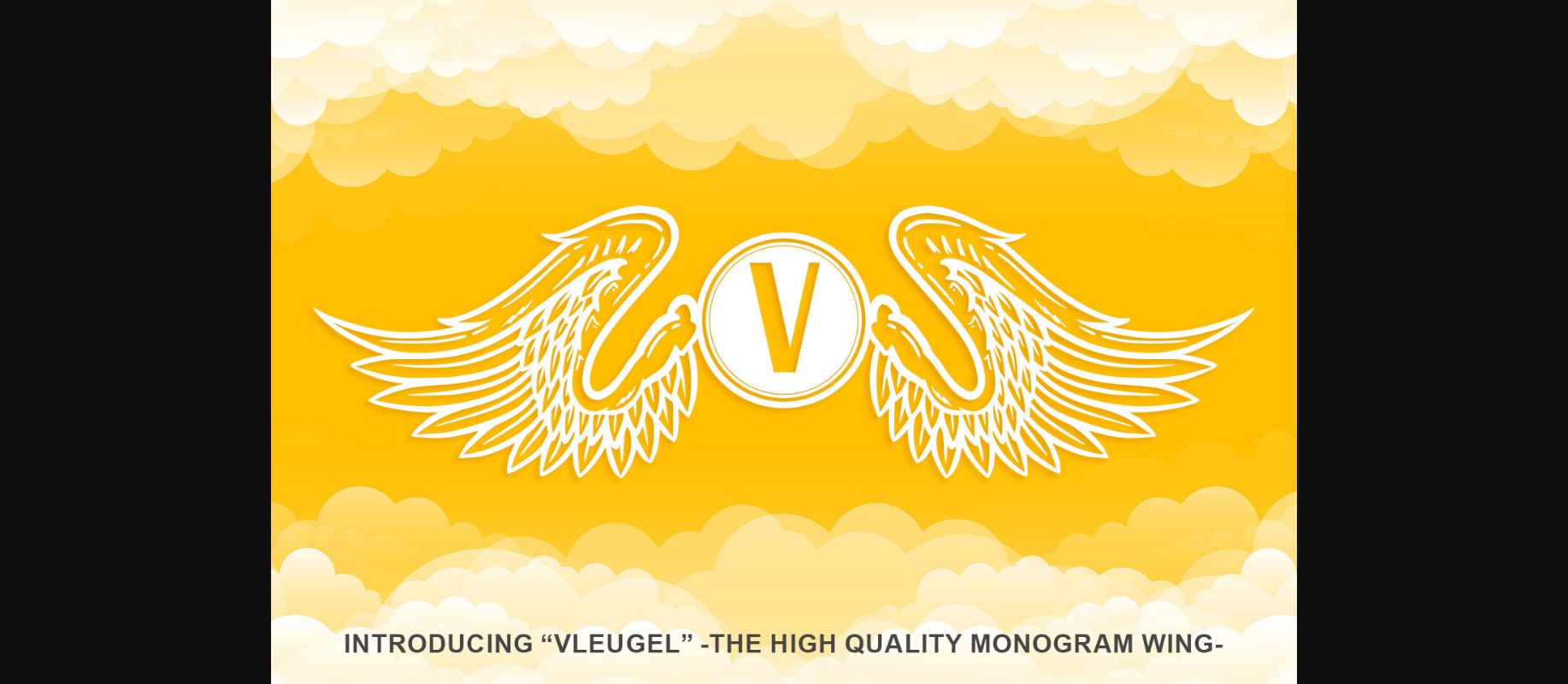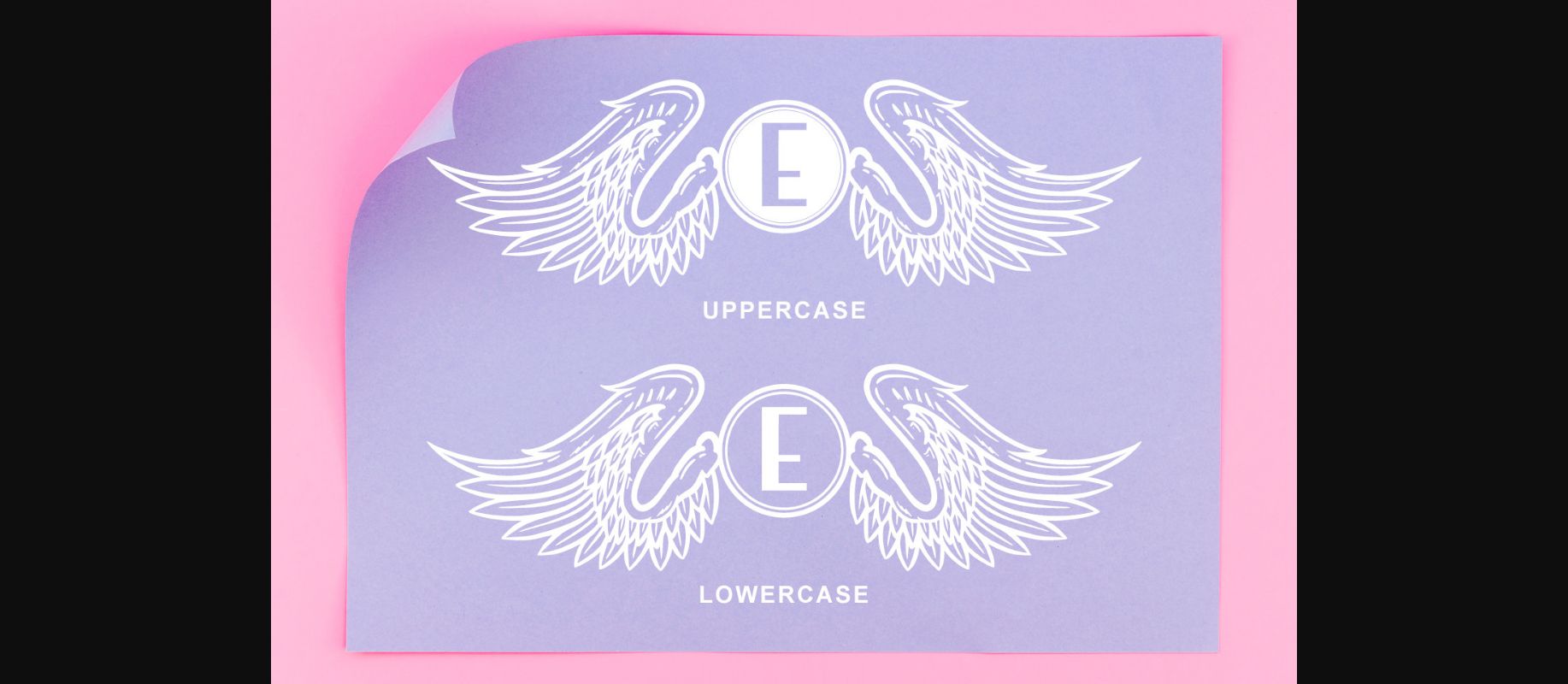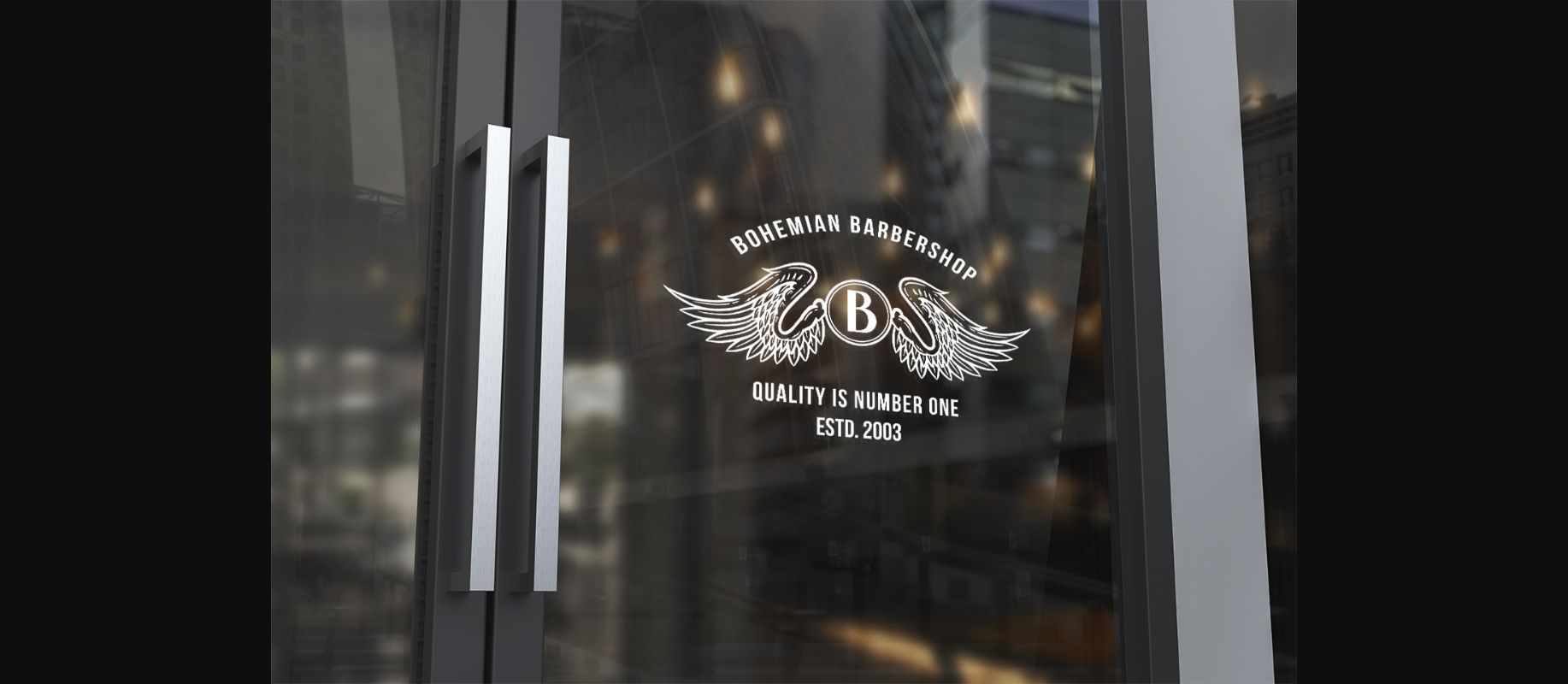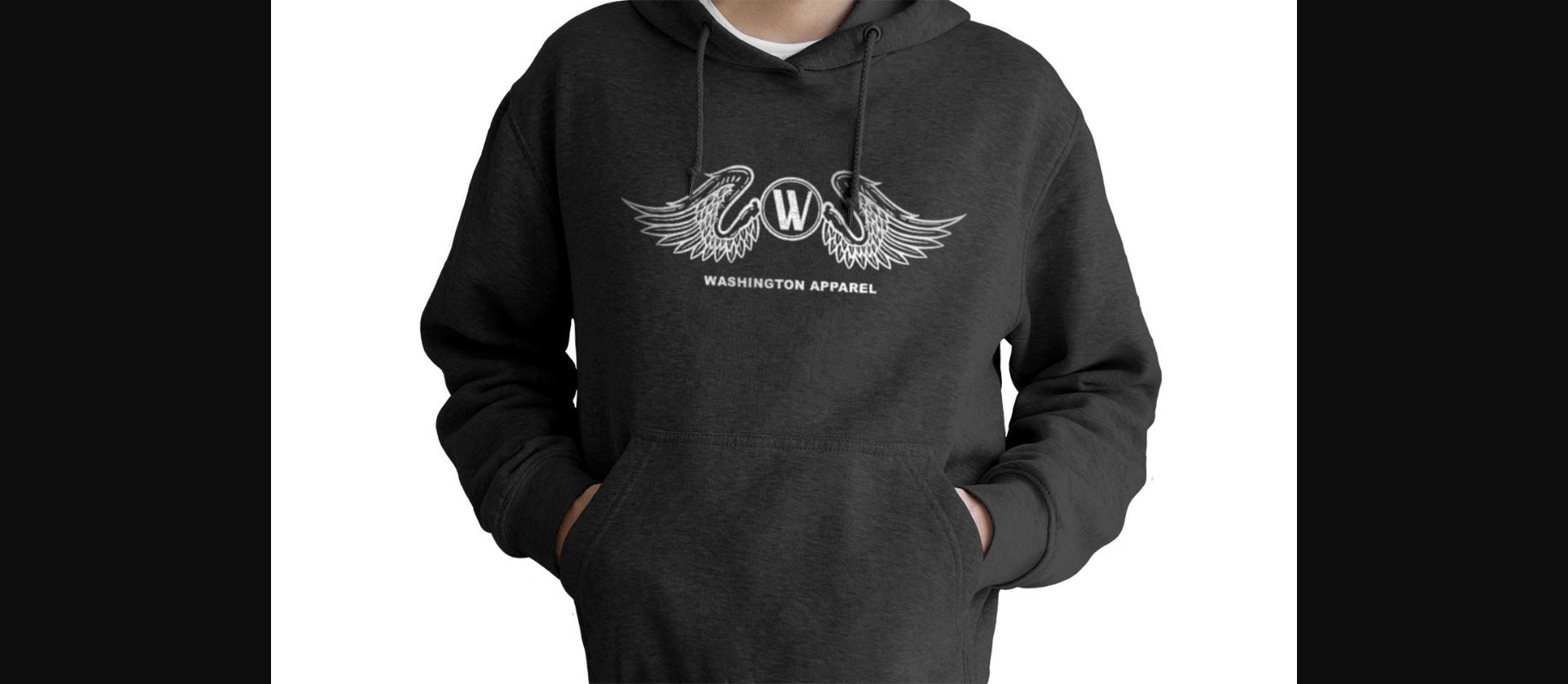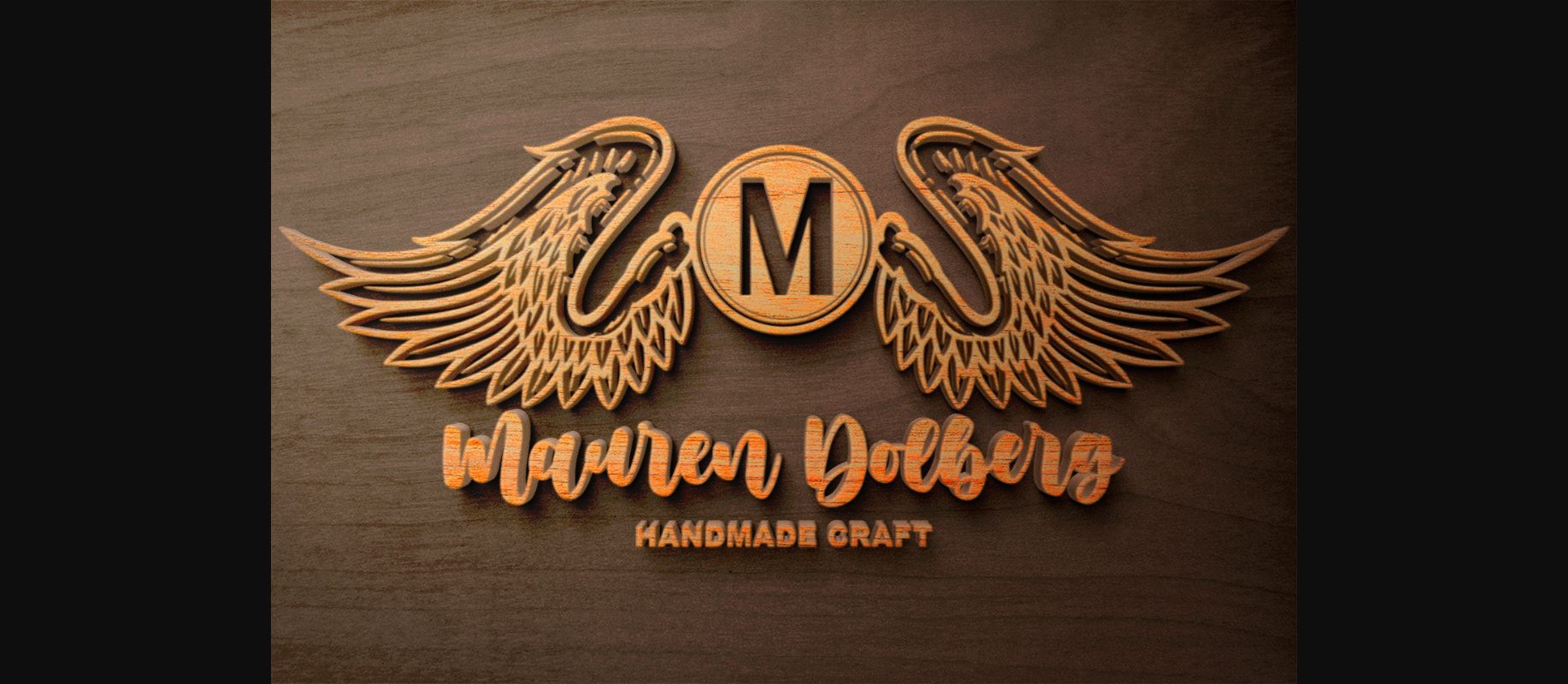
Vleugel Monogram is a delicate, detailed and chic decorative font. Fall for its ravishing style and use it to create gorgeous wedding invitations, beautiful stationary art, eye-catching social media posts, and much more!